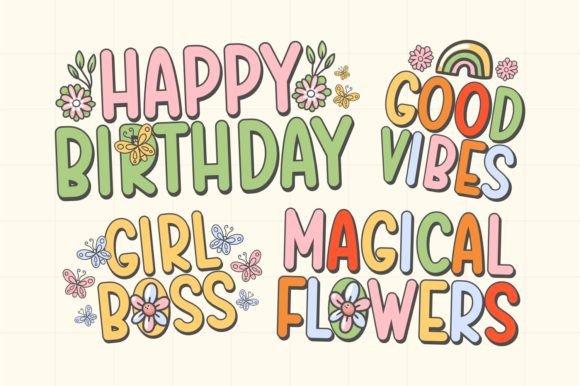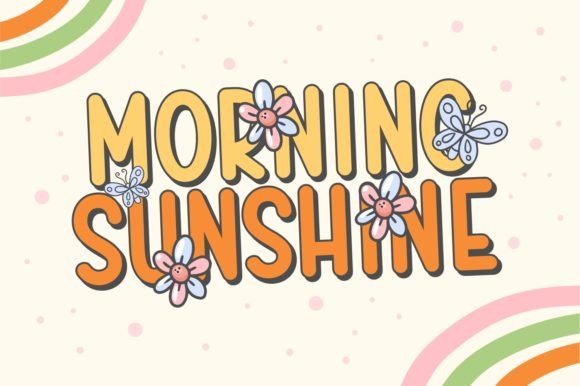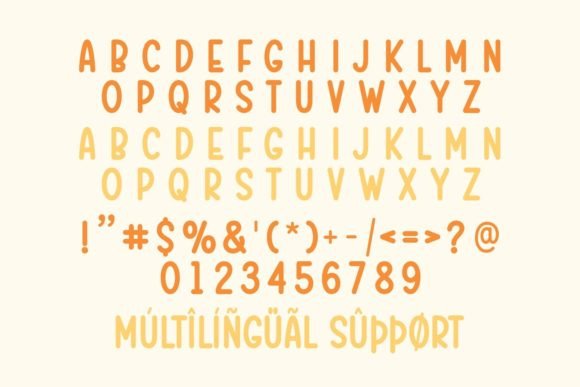
Birthday Flowers Font
Birthday Flowers is a fun and playful display font that adds a joyful touch to your designs. With its whimsical style, it’s perfect for creating birthday cards, party invitations, and other celebratory materials. Let Birthday Flowers bring a burst of color and happiness to your projects!